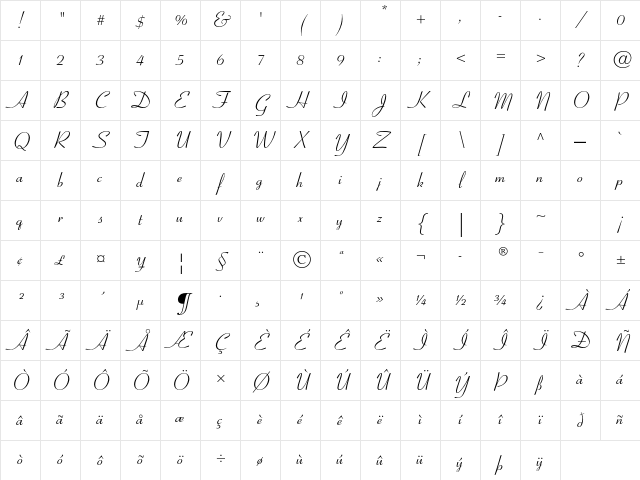
Coronet LT Std Regular
Designer: R. Hunter Middleton
Design Context for Coronet LT Std
Coronet LT Std is a composed and adaptable typeface that performs quietly and consistently across a wide range of design contexts. Its slender proportions lend an understated elegance to any composition.